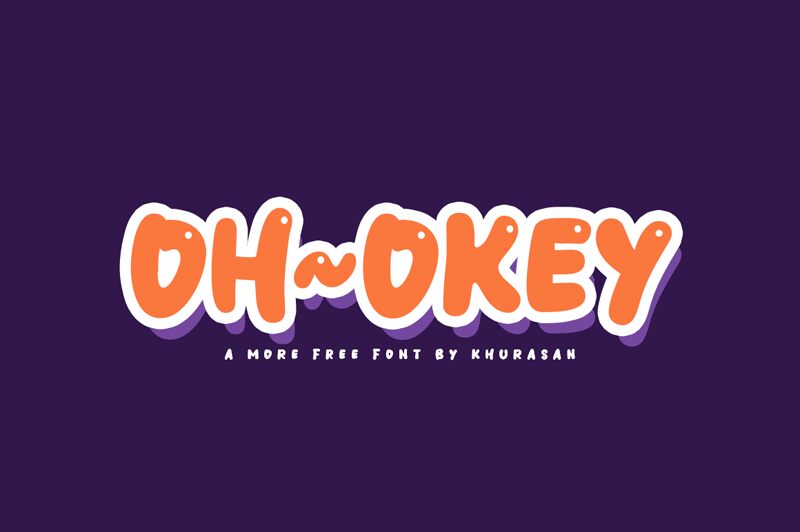
Oh Okey is a bold display font designed by Khurasan. With its playful and cartoonish style, it's perfect for projects that require a fun and whimsical touch. Its bold weight ensures maximum impact on any design, making it suitable for logos, posters, invitations or anything that needs to stand out. Oh Okey's unique personality is sure to bring life to any project it's used in. Whether you're designing for a children's book or a quirky brand identity, this semi-bold typeface will give your work the charm and character it deserves.
Oh Okey